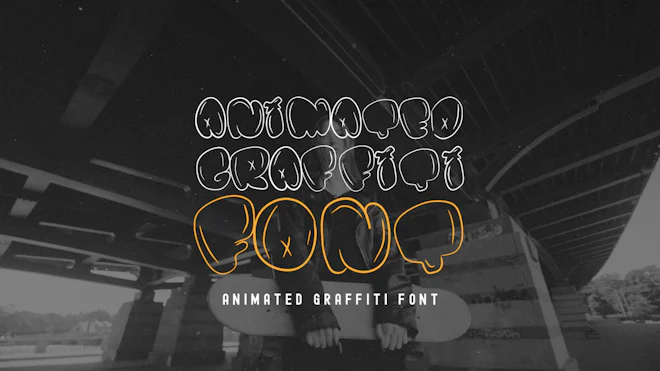
This stock motion graphics video pack includes 40 different clips of animated graffiti font letters, numbers and symbols on transparent alpha channels for easy drag and drop.